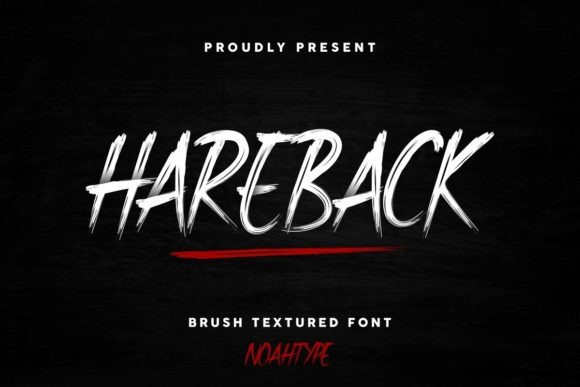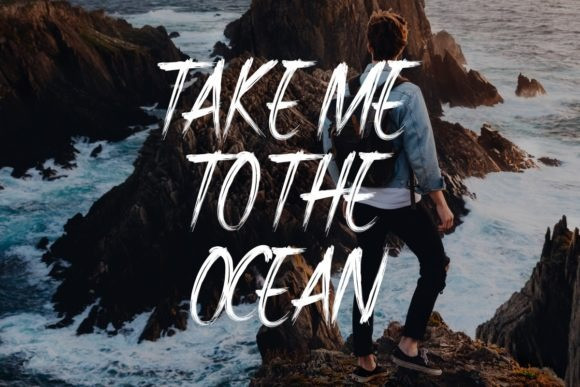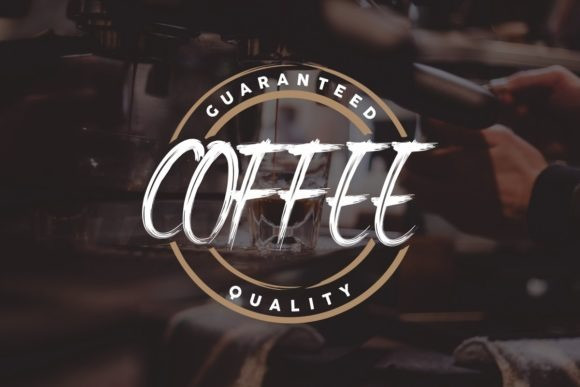
Hareback Font
Hareback is a cool and street art vibe. This font is suitable for designs such as t-shirts, sportswear, logos, advertisements, clothing, and more.